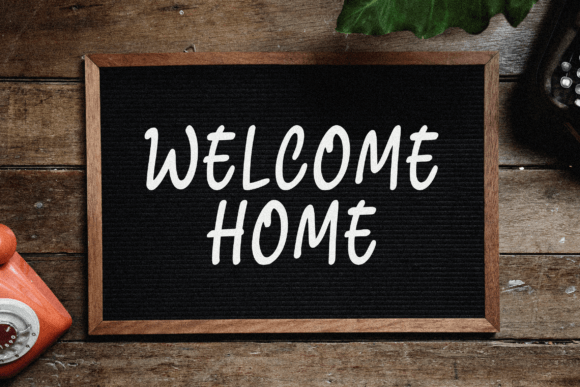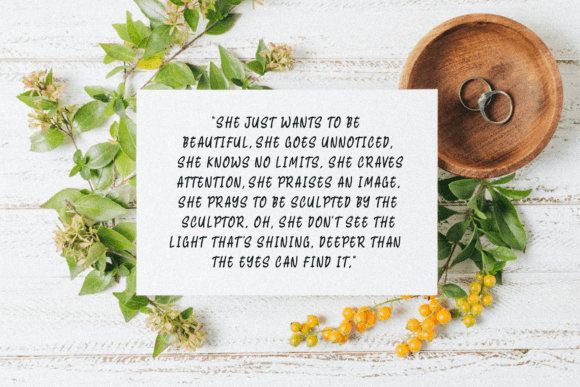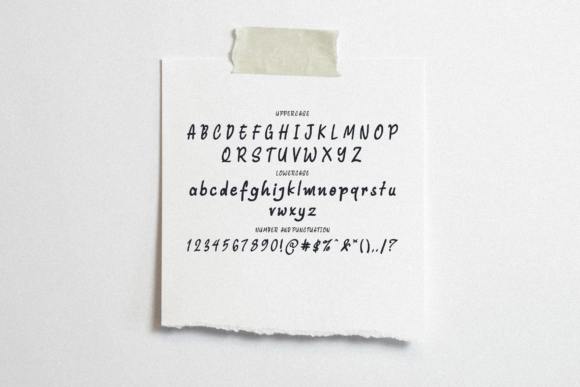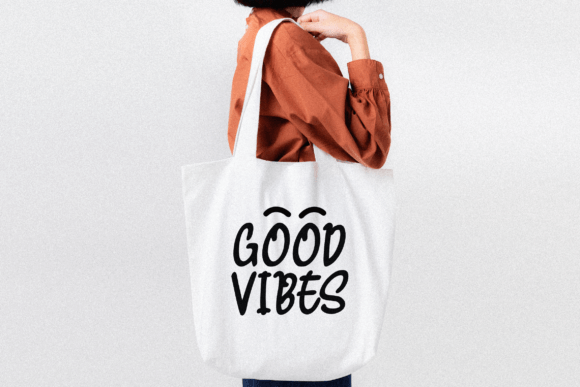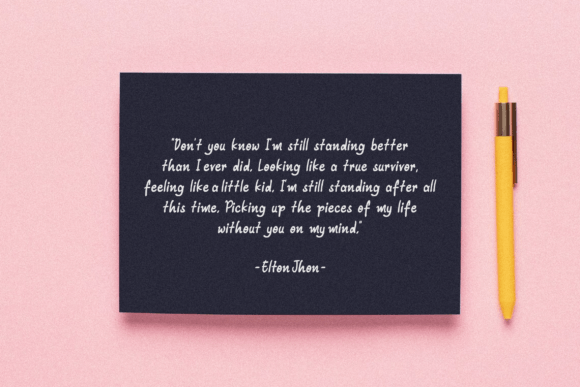
Windstruck Font
Windstruck Handwritten Font – Elegant and Contemporary Typeface
The Windstruck Handwritten Font is an exquisite and refined script typeface designed to elevate your creative projects. With its classy calligraphic influence and modern flow, it delivers timeless elegance while keeping a fresh, contemporary look. Whether you’re working on invitations, posters, or logos, this font guarantees polished and stylish results.
A Handwritten Script with Calligraphic Grace
The Windstruck Handwritten Font blends delicate strokes with smooth handwritten flow. Its balanced style makes it versatile, while its clarity ensures it works perfectly for both personal and professional projects. Because of this, it adapts seamlessly to a wide range of design needs.
Perfect for Invitations and Branding
One of the most popular uses of the Windstruck Handwritten Font is in wedding invitations and branding projects. Its elegant strokes give a luxurious charm to stationery, thank-you cards, and menus. At the same time, it enhances logos, posters, and product packaging, making designs stand out with sophistication.
The Windstruck Handwritten Font adapts beautifully to different projects. From book covers and magazines to greeting cards and digital graphics, it offers a handwritten look that feels modern yet timeless. As a result, it is a reliable font for both hobbyists and professional designers.
Why Designers Love Windstruck Font
Designers appreciate the Windstruck HandwrittenFont because it combines calligraphic elegance with modern usability. Its graceful handwritten details add personality, while its readability ensures polished results. This balance makes it a must-have typeface for creative toolkits.
In summary, the Windstruck HandwrittenFont is an elegant, versatile, and timeless typeface. With its classy handwritten strokes, quick installation, and broad usability, it is perfect for invitations, logos, posters, and branding projects. Don’t miss the chance to download Windstruck HandwrittenFont and bring a touch of elegance to your designs.